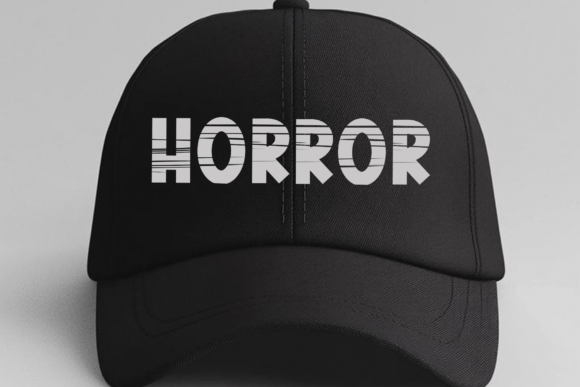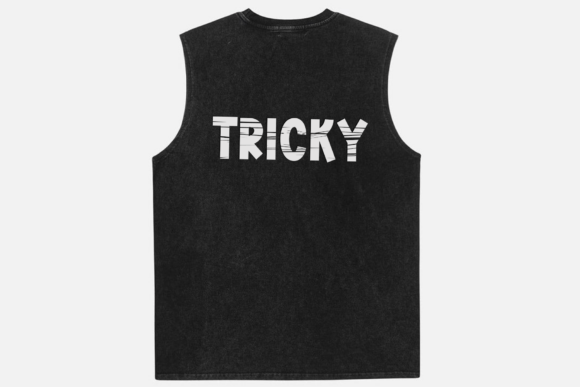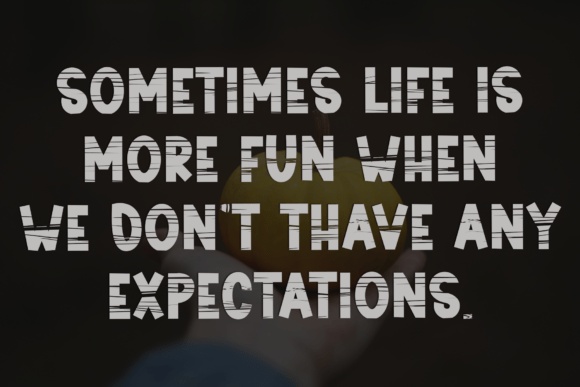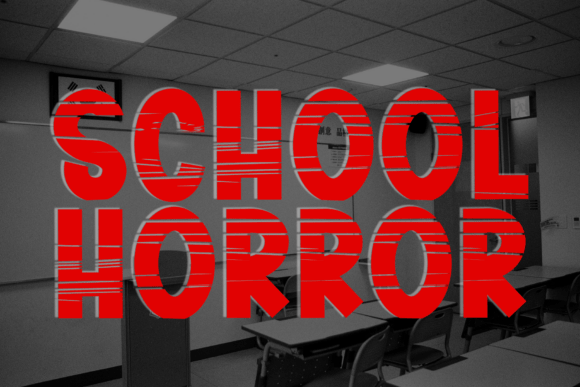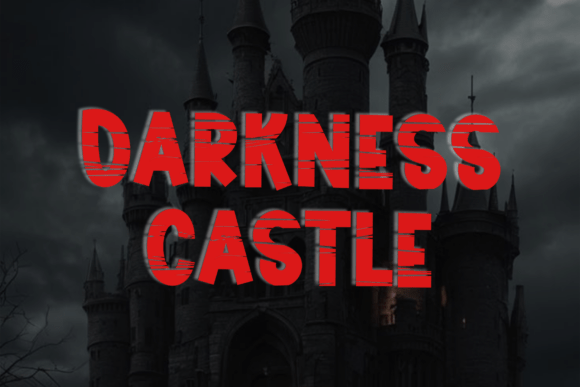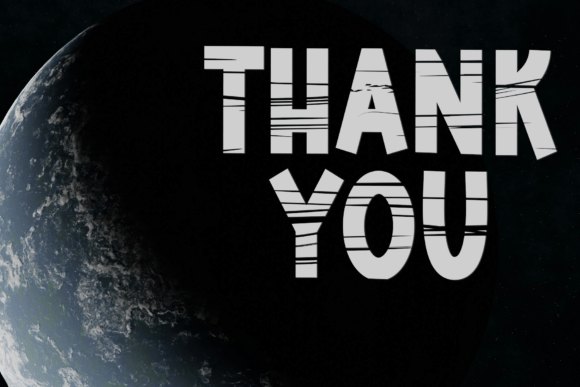
The Unapologetic Spirit of Grunge Vintage
As a designer, you’ve likely found yourself wandering through vintage shops, flea markets, or thrift stores, searching for that one unique, worn-out piece to add character to your project. The thrill of the hunt, the excitement of stumbling upon an old, weathered sign or a torn-up poster – it’s a creative moment that sparks inspiration and fuels your imagination.
Enter the Grunge Vintage Font, a typeface that embodies the raw, unbridled energy of underground culture and the beauty of imperfection. This distressed display font is not just a tool for designers, but a statement piece that tells a story of rebellion, resilience, and wear. With its cracked textures, jagged symmetry, and bold forms, the Grunge Vintage Font is an ideal choice for designers seeking an edgy, non-digital look that adds emotional weight to their work.
Grunge Vintage Font Key Features
- Character Set: 256 glyphs, including uppercase and lowercase letters, numbers, and special characters
- Unique Characteristics: Distressed, vintage-inspired aesthetic with worn edges and subtle texture, perfect for creating a retro or grunge look
Grunge Vintage Font Review
I’ve had the chance to work with the Grunge Vintage Font, and I’ve got some thoughts to share. ✨ First off, the font’s distressed, vintage aesthetic is a great fit for any design project that needs a nostalgic vibe. The font’s rough edges and imperfections add a level of authenticity that’s hard to replicate with more polished fonts.
The font also comes with a wide range of weights, from light to bold, making it easy to find the perfect fit for your project. I’ve used it for everything from logo designs to print materials, and it always looks great. ✨ Additionally, the font is highly customizable, allowing you to adjust the spacing, color, and even add textures to give it an extra layer of depth.
- ⚠️ The font can be a bit too rough at times, which may not be suitable for projects that require a more refined look.
- ⚠️ Some characters may not be perfectly legible, especially at smaller font sizes.
- ⚠️ The font’s vintage aesthetic may not be to everyone’s taste.
Overall, I think the Grunge Vintage Font is a solid choice for designers who want to add a touch of nostalgia to their projects. While it may not be perfect, its unique aesthetic and high level of customization make it a great option for designers who want to stand out from the crowd.
Grunge Vintage Font Practical Application Guide
Use the Grunge Vintage Font to add a vintage touch to your designs.
Combine it with distressed textures and effects for a more authentic look.
Use the Grunge Vintage Font for:
Music posters and flyers.
Old-fashioned book covers and labels.
Retro-themed advertisements and marketing materials.
Alternatives to Grunge Vintage Font
Fontin is a distressed font with a rough, vintage feel. It’s ideal for use in designs where you want to evoke a sense of nostalgia or grittiness. Fontin is similar to Grunge Vintage Font in its distressed look, but it has a more subtle and refined feel. It’s a good choice for designs that require a touch of vintage charm without being too over-the-top.
Anton
Anton is a bold, distressed font with a strong, industrial feel. It’s perfect for use in designs where you want to make a statement or add a sense of edginess. Anton is more dramatic and attention-grabbing than Grunge Vintage Font, making it a good choice for designs that require a bold, eye-catching look.